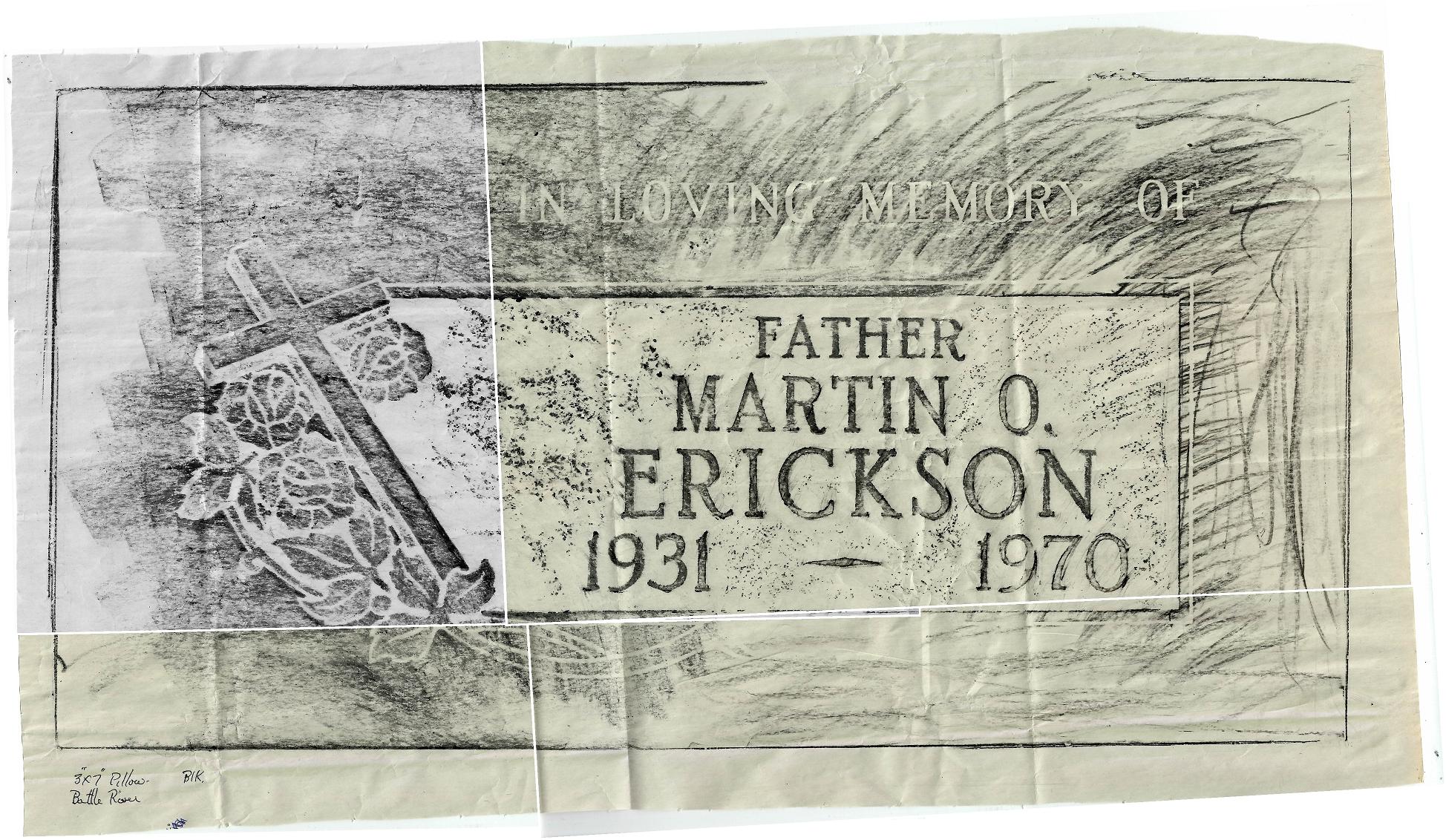
Font ID for name and dates
We are struggling to find the exact font for this monument. I believe that the epitaph is Condensed Roman, but the rest of the lettering is throwing me off. Modified Roman is rather close but not quite. The bar of the A and E are rather different. As well as the leg on the R.
Hello, this appears to be a mixed bag of hand-drawn or modified lettering with some metal Spacerite alphabets. You can see that the ‘R’ changes quite a bit at each size.
It is likely that the Spacerite Modified Roman alphabet was used for the endearment, the given name and the date lines, but was modified by hand to be bolder for use as raised lettering. The surname is the Spacerite Double Outline alphabet with the second outline ignored by the stencil cutter—which was common and in fact recommended in the original sales materials when the metal alphabet was first released in the early 1940s.